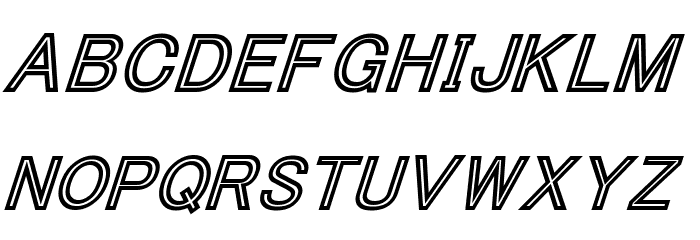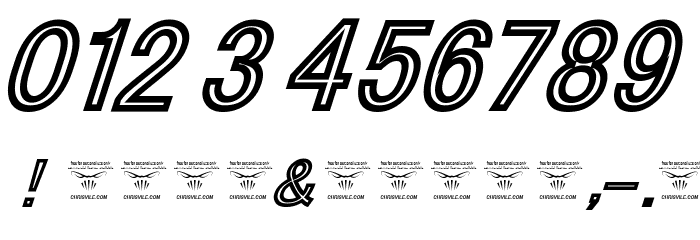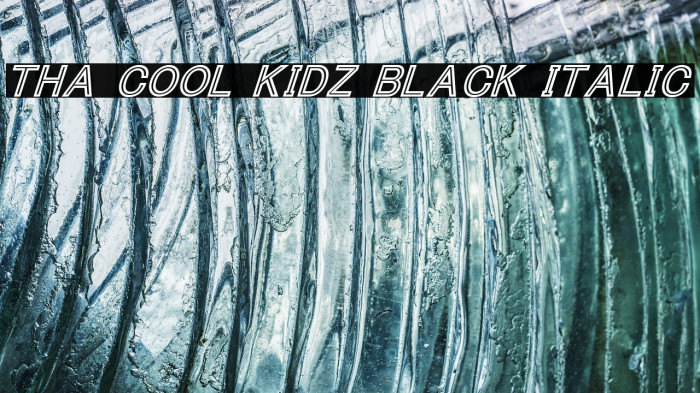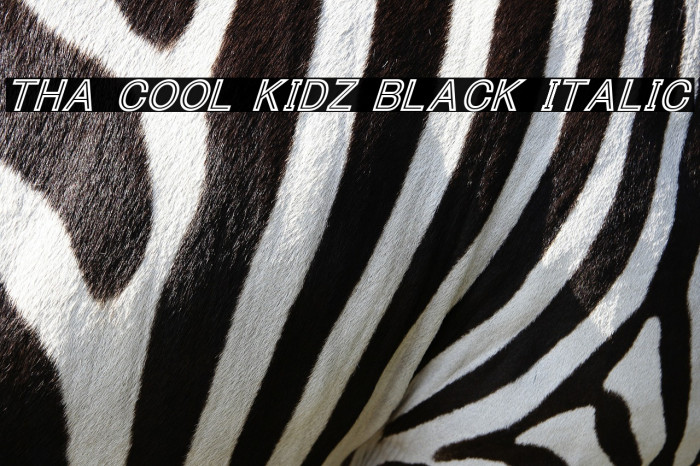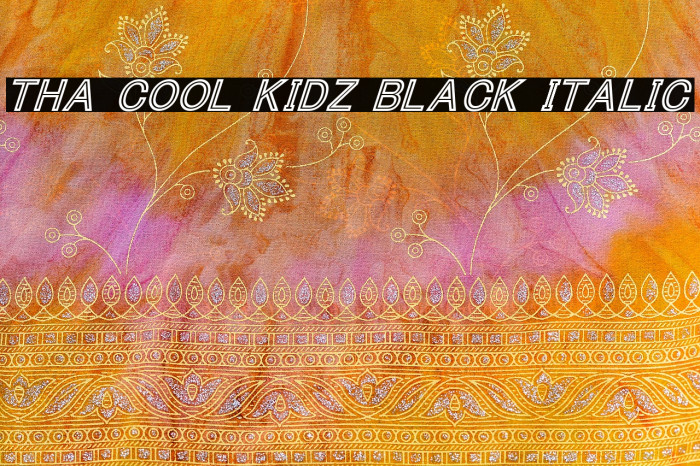
Tha Cool Kidz Black Italic Font
This font features a bold and italicized style with a modern, edgy flair. The characters are outlined, giving them a three-dimensional appearance that stands out. The uppercase and lowercase letters maintain a consistent slant, enhancing the italic effect. The numbers and special characters follow the same stylistic approach, ensuring uniformity across all glyphs. The font's design is clean yet dynamic, making it suitable for projects that require a strong visual impact.
Bold, italicized font with a modern, outlined style.
- Proposed Projects: Ideal for branding, posters, headlines, and any design requiring a bold statement.